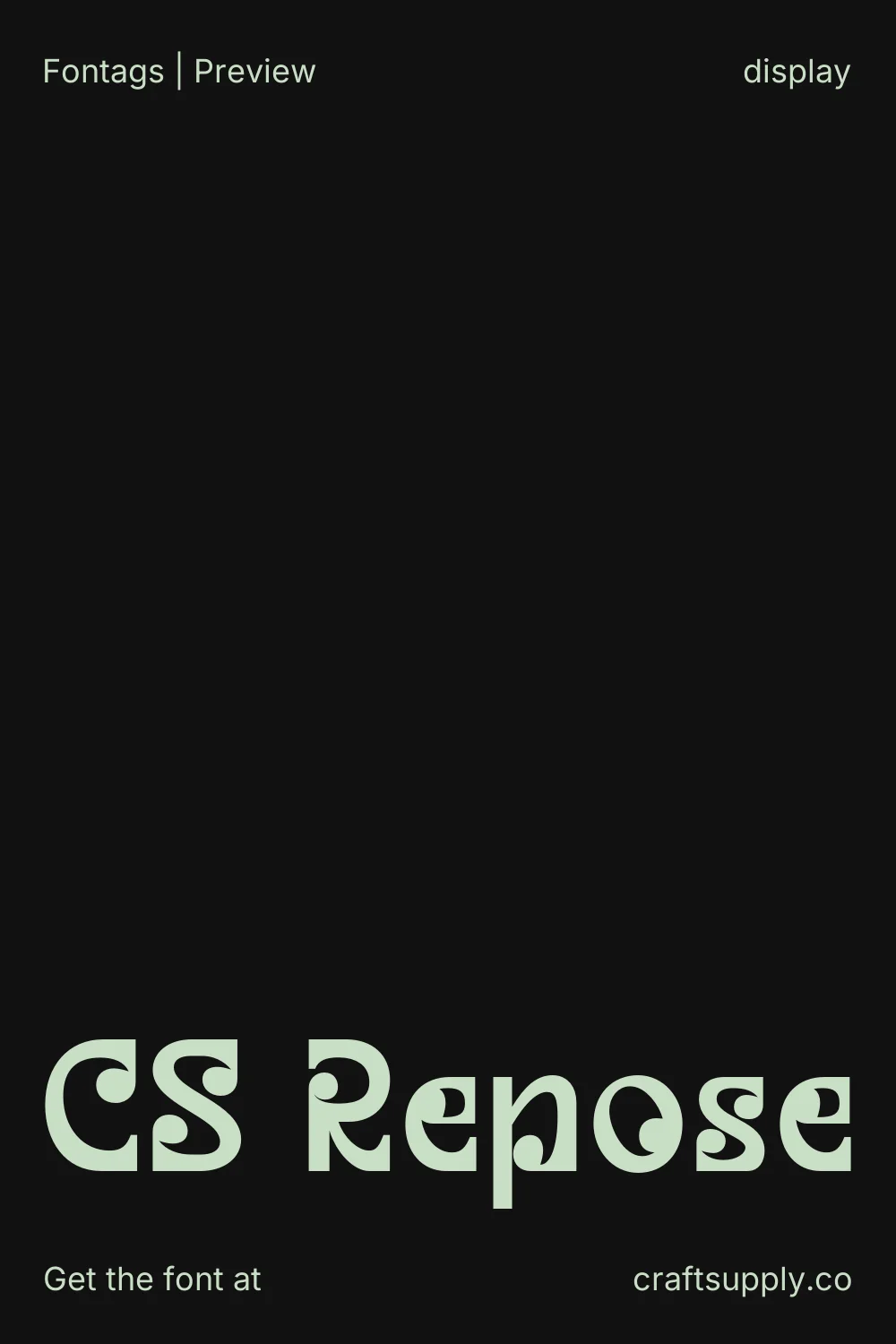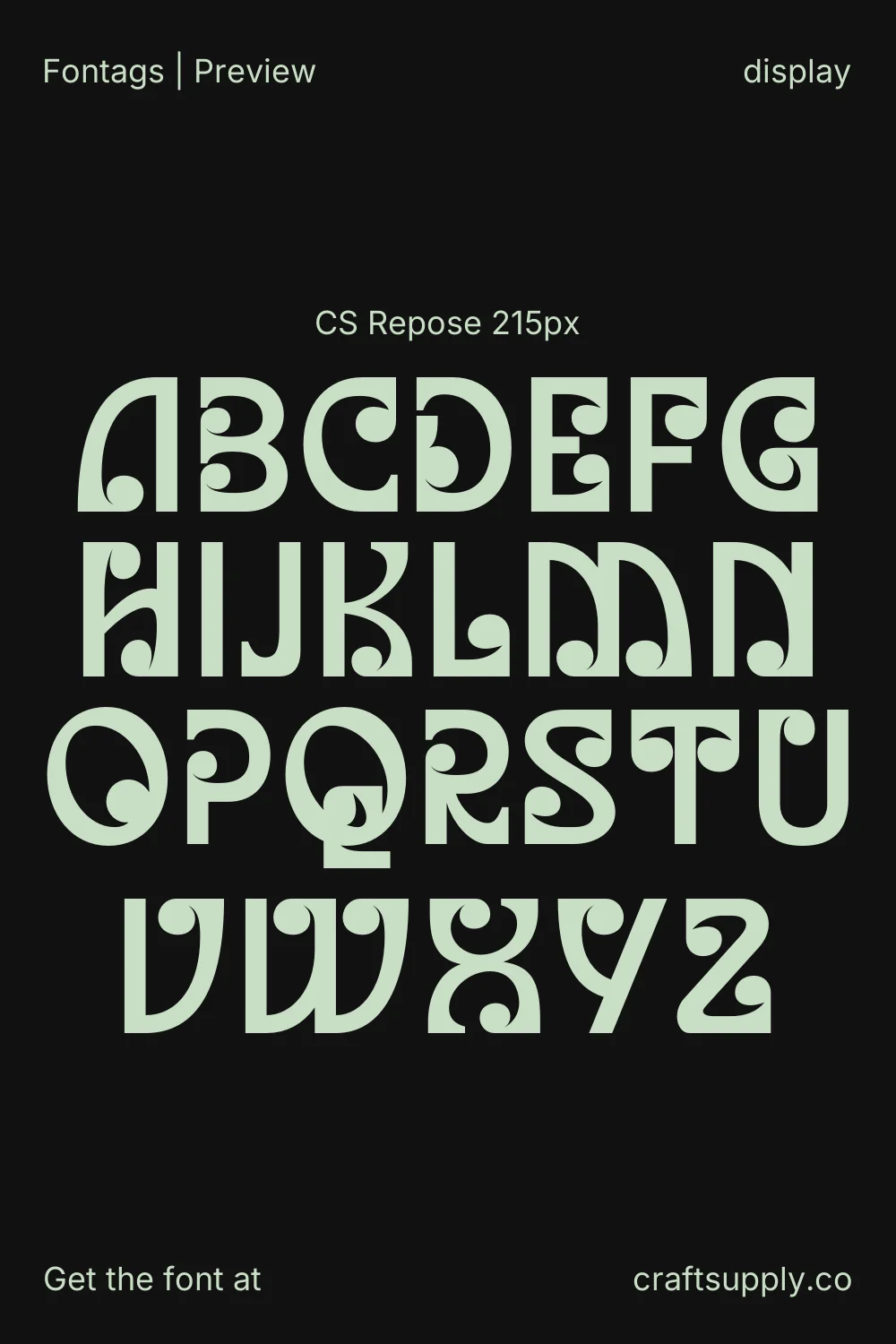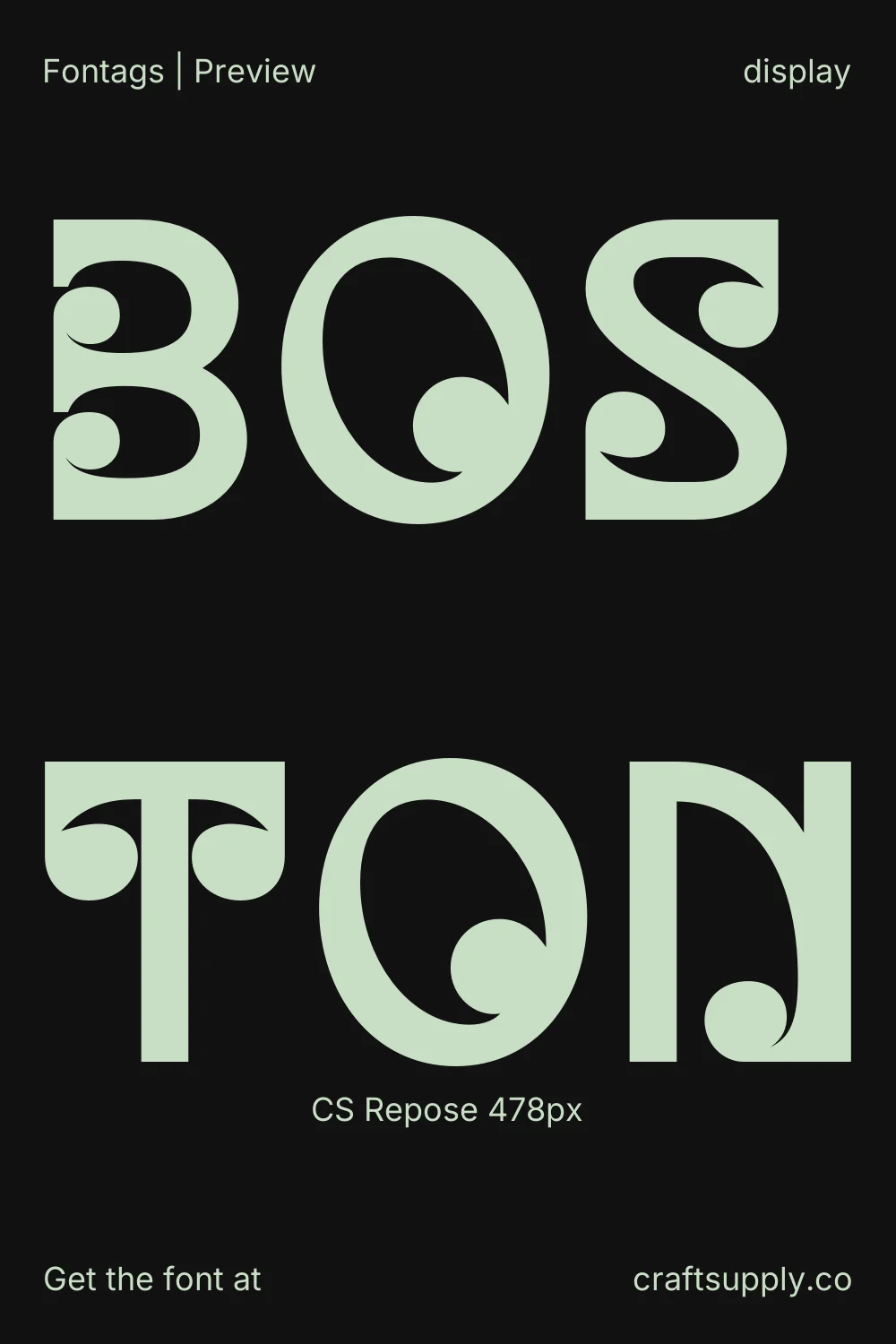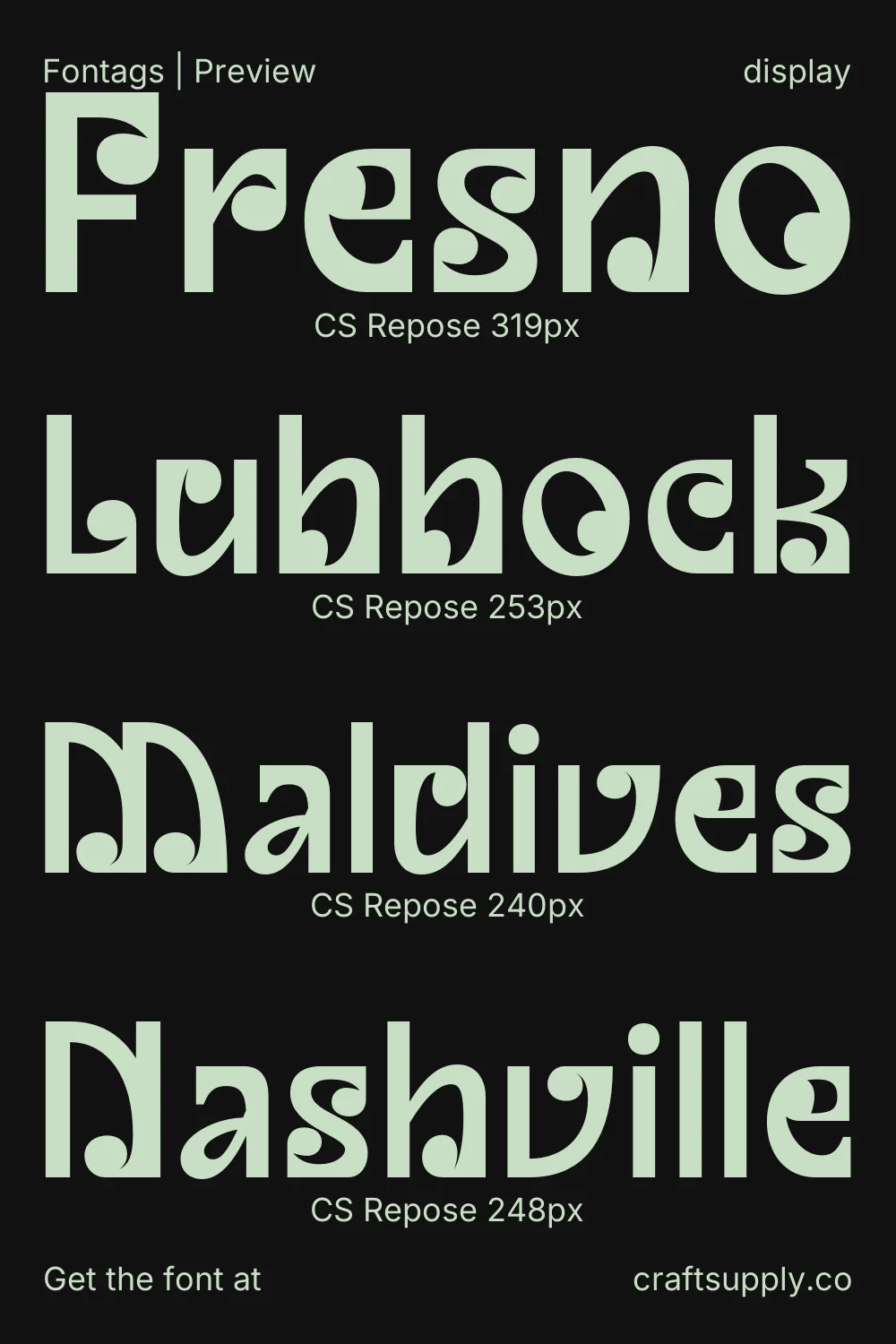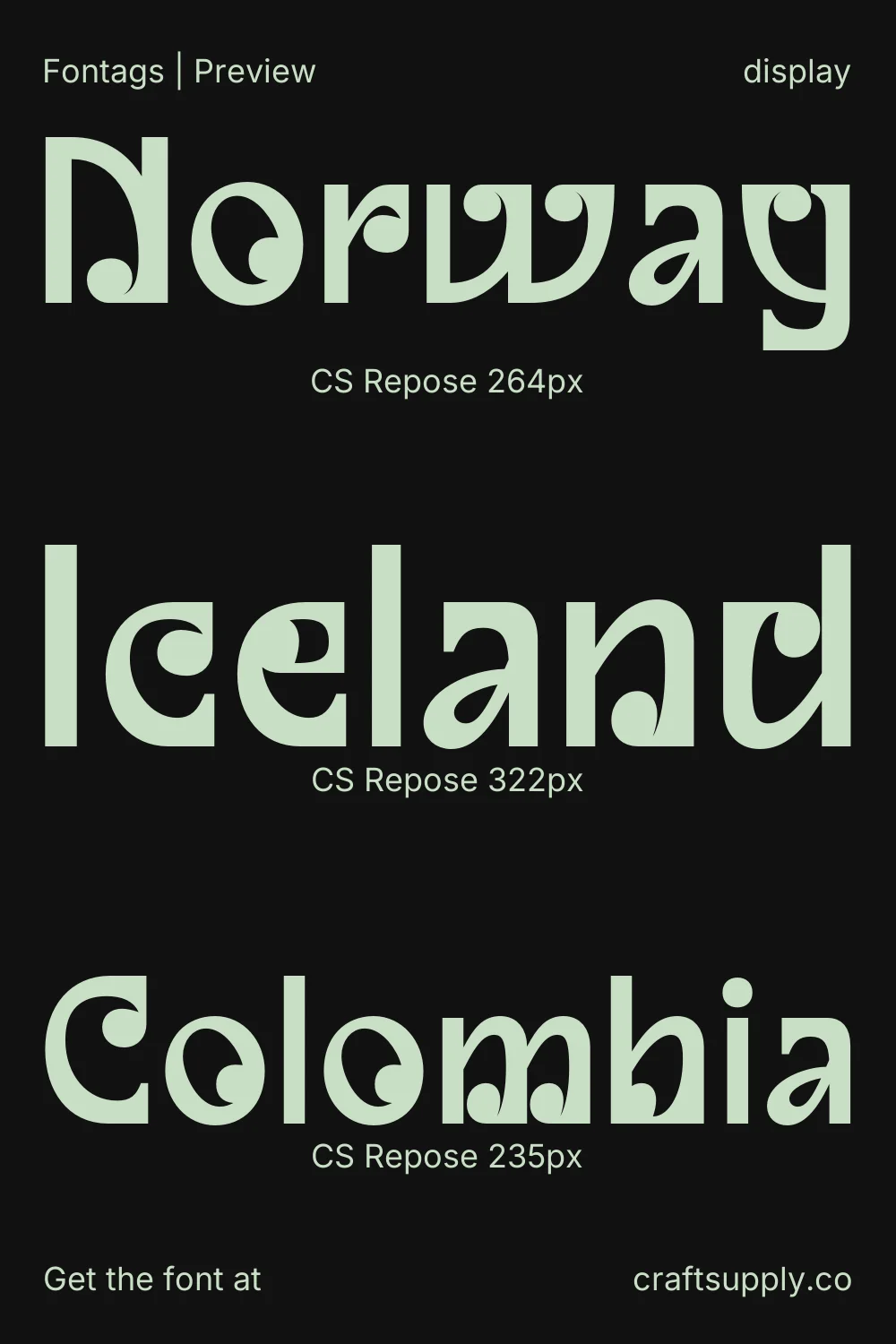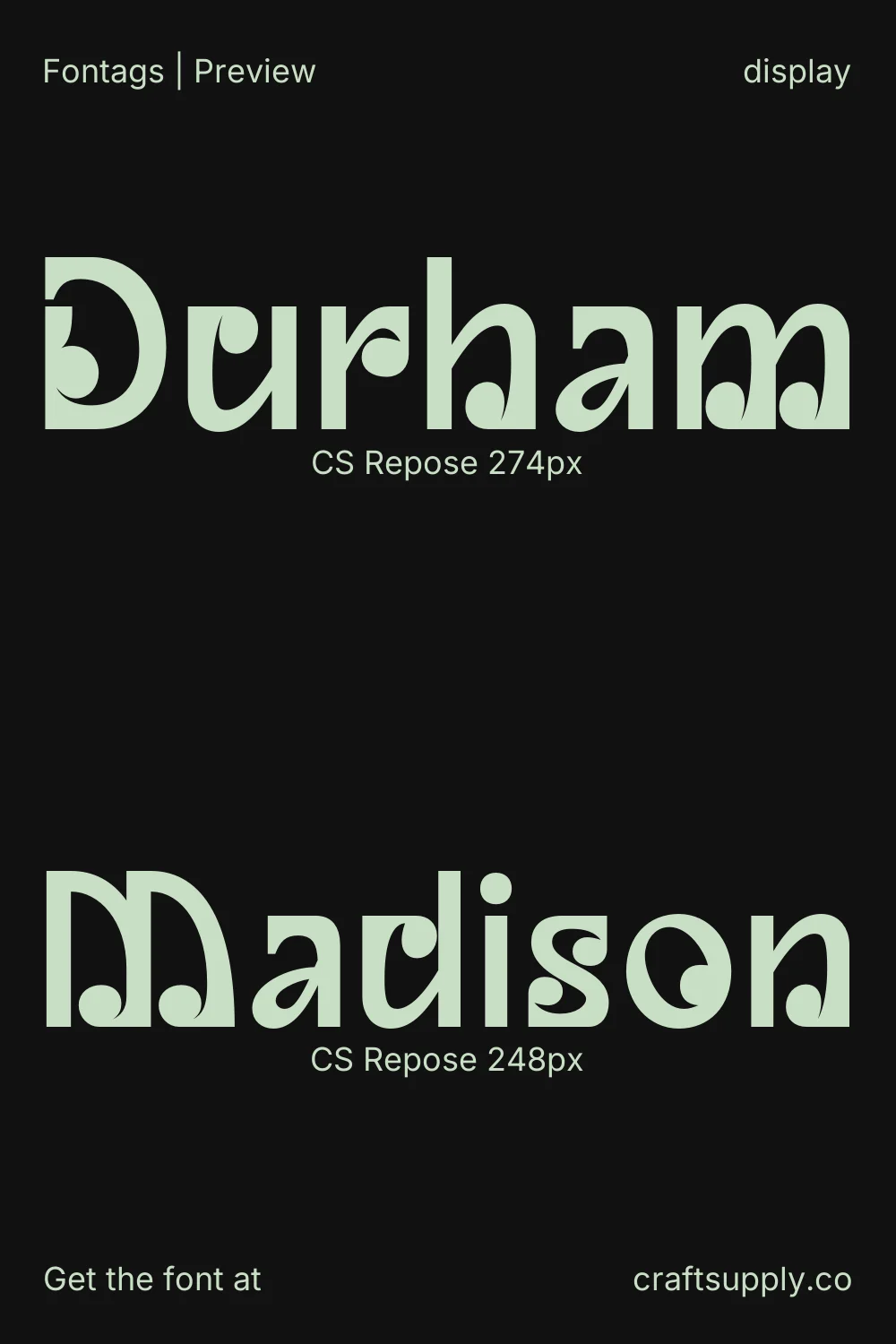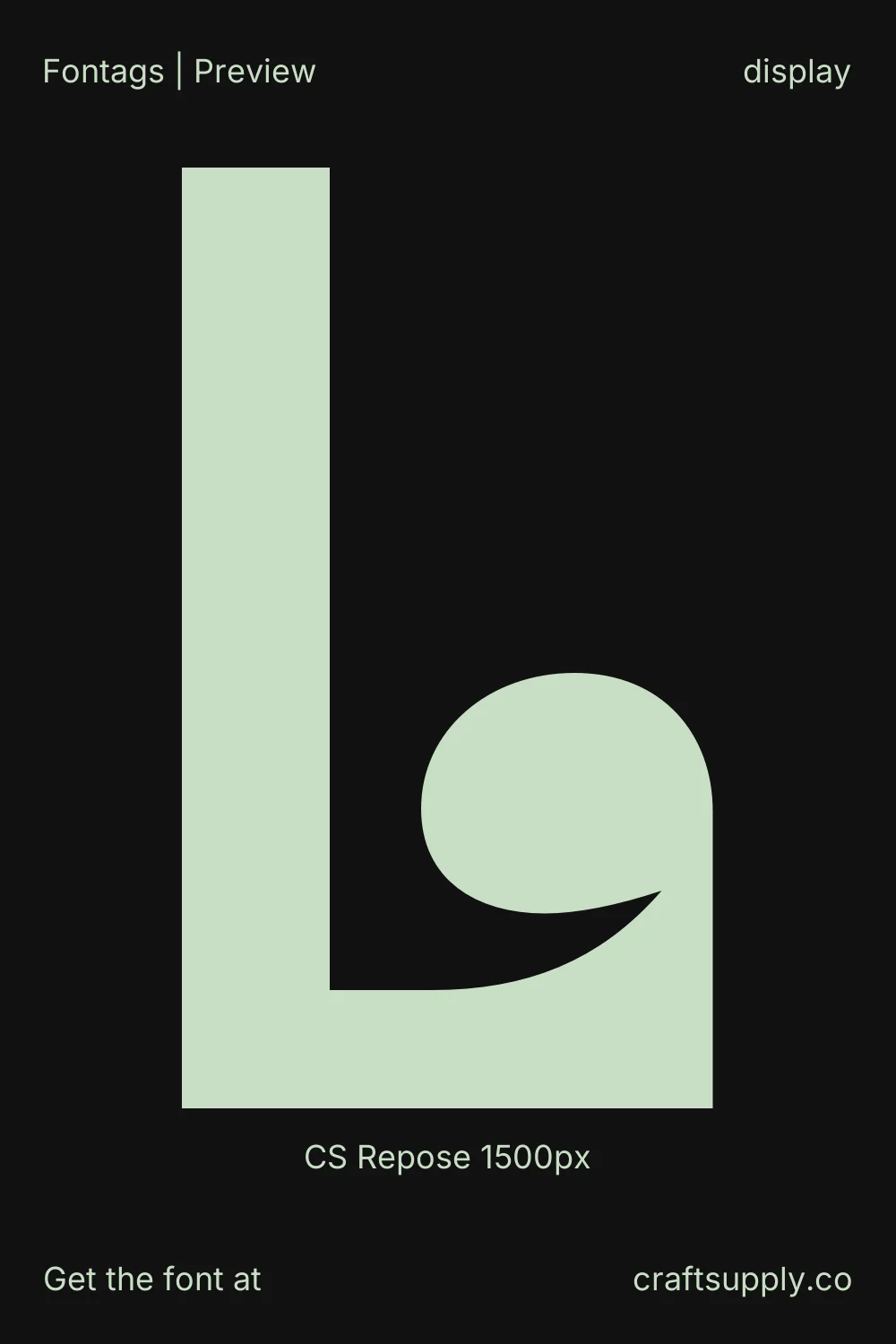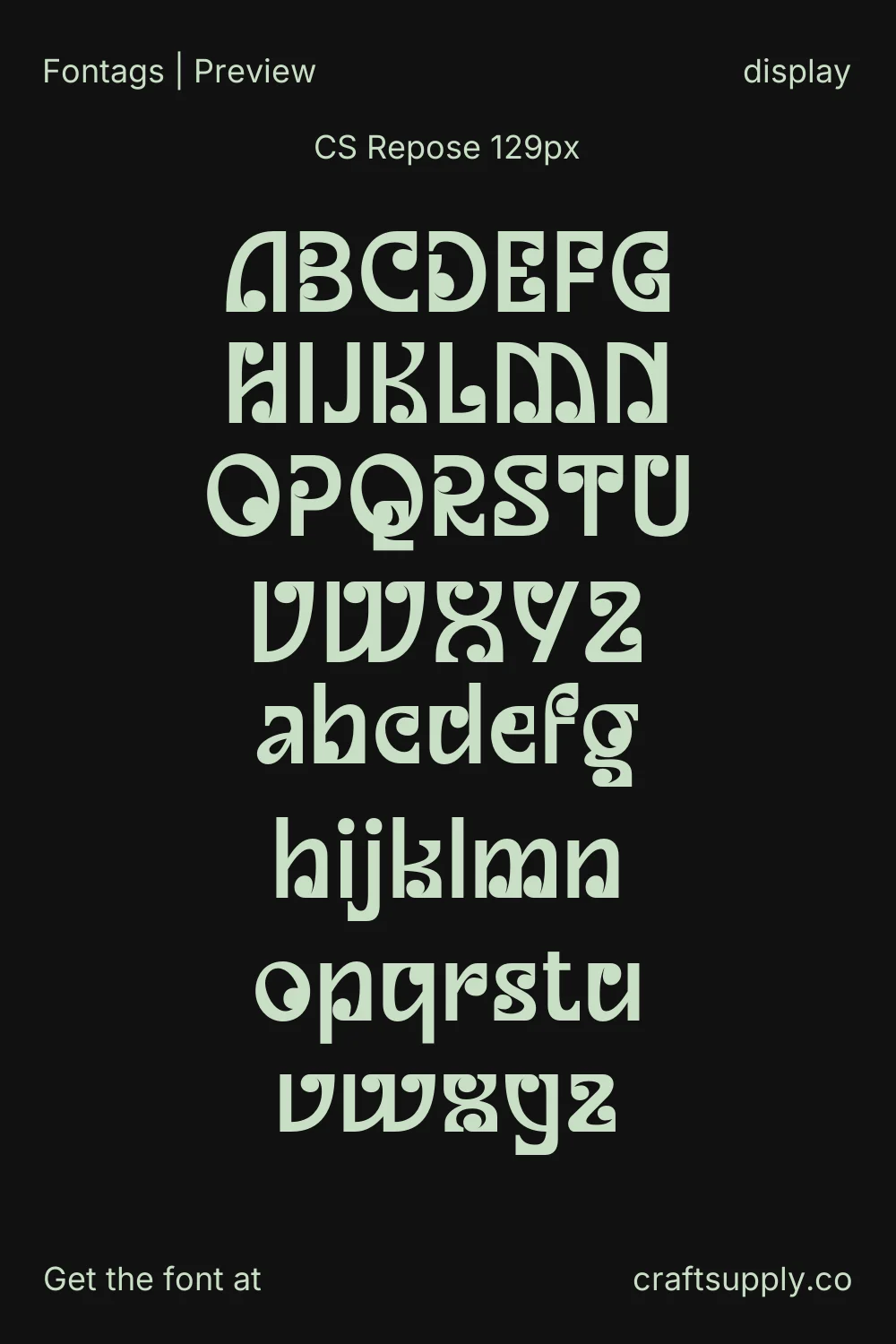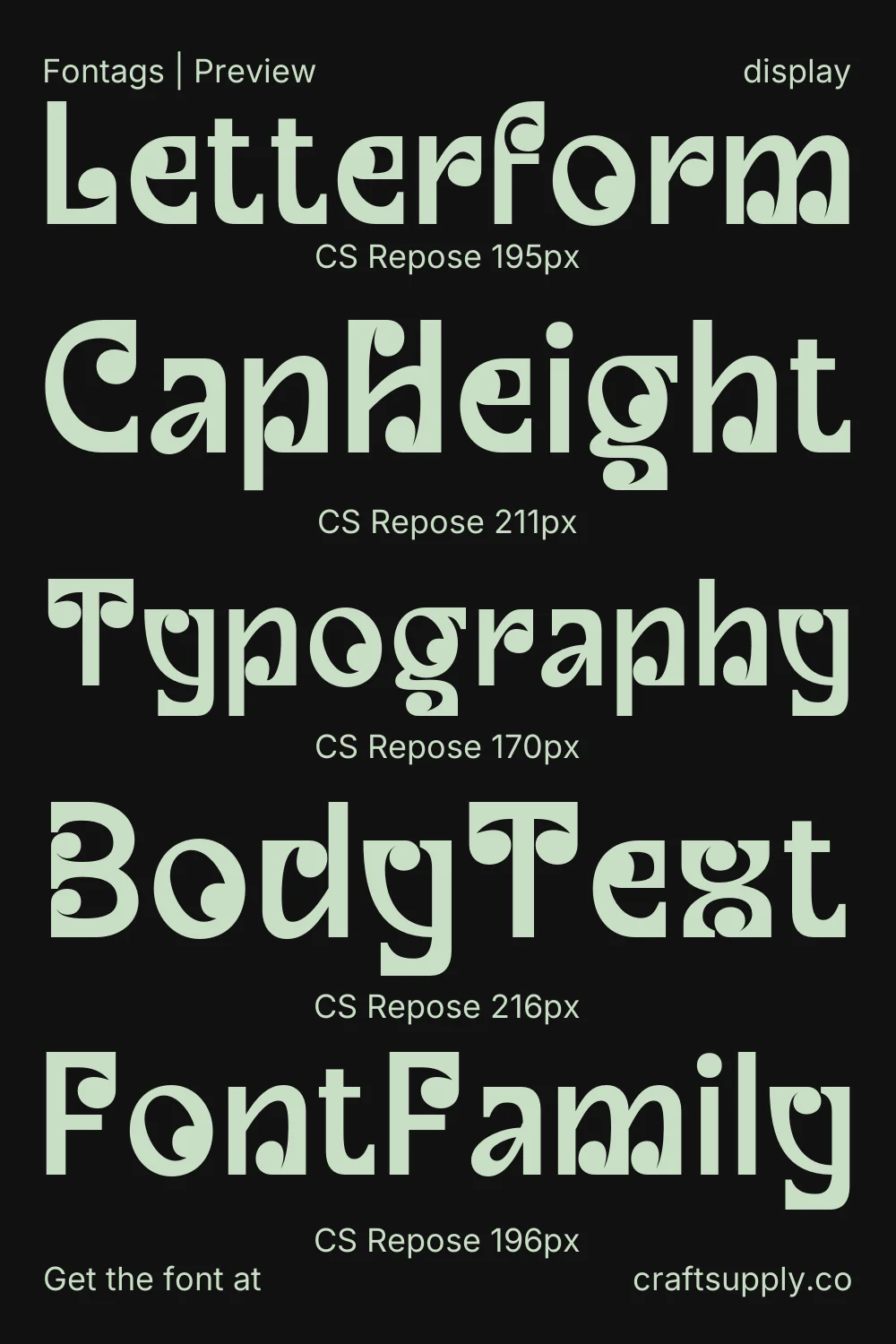
CS Repose
CS Repose is a bold decorative sans-serif display font that radiates vibrant energy and creative flair. Its dynamic letterforms combine striking, modern shapes with artistic, funky details, perfect for vibrant branding, event posters, album covers, and promotional materials. This font delivers a confident and playful personality, making it ideal for projects that need to make a bold statement.